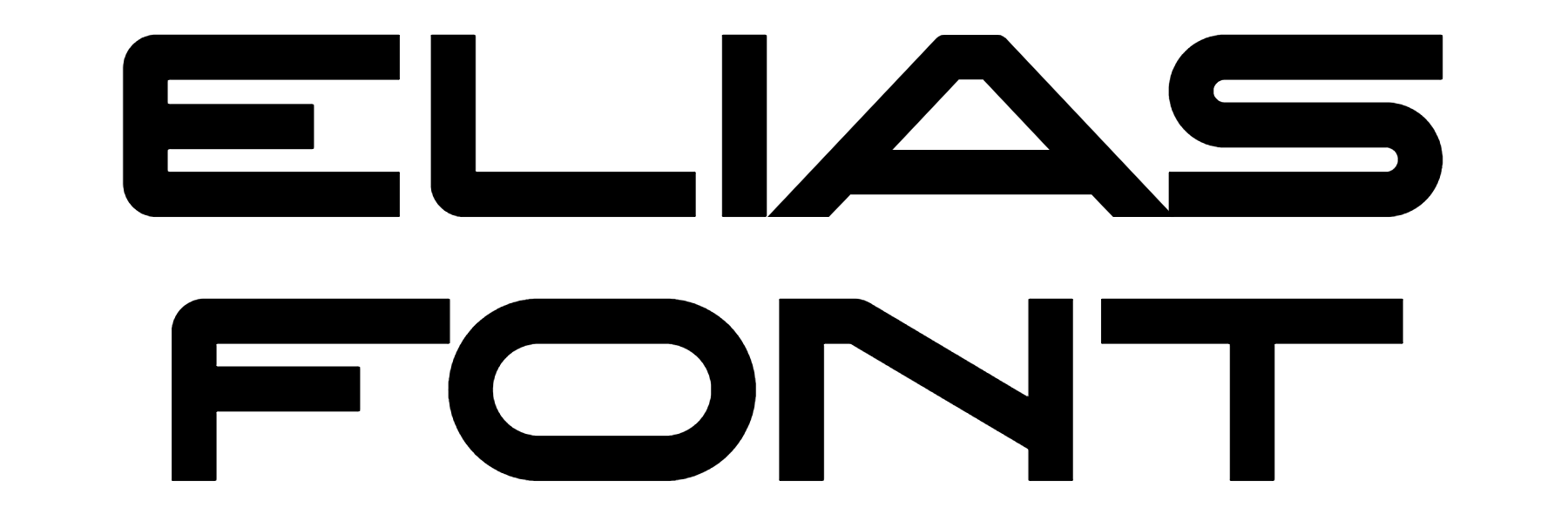
Elias
Elias is a techno font created by Vladimir Nikolic (2023). Squared-off, geometric letters give it a digital, high-tech feel. It's a free download, and you can try it with your own text in the preview above first.
What You Can Type With Elias
Elias has the full alphabet in upper and lowercase. There are no numbers, so you'll need a second font for dates, prices or phone numbers. Punctuation is limited, so look at the character map if you need a specific symbol. There are no accented letters like é or ñ, so it's best kept to English text.
Where Elias Works Best
Elias is a natural fit for gaming logos, tech branding and futuristic posters. Try it on a dark background with a bright accent color for a sharp, modern look.
Who designed Elias font?
Does Elias support accented letters?
No. Elias has no accented letters such as é, ñ or ü, so it's best for English text.
Does Elias have numbers?
No. Elias has no numbers, so pair it with another font for dates, prices or phone numbers.
What fonts pair well with Elias?
A simple sans serif like Roboto keeps longer text easy to read next to it.